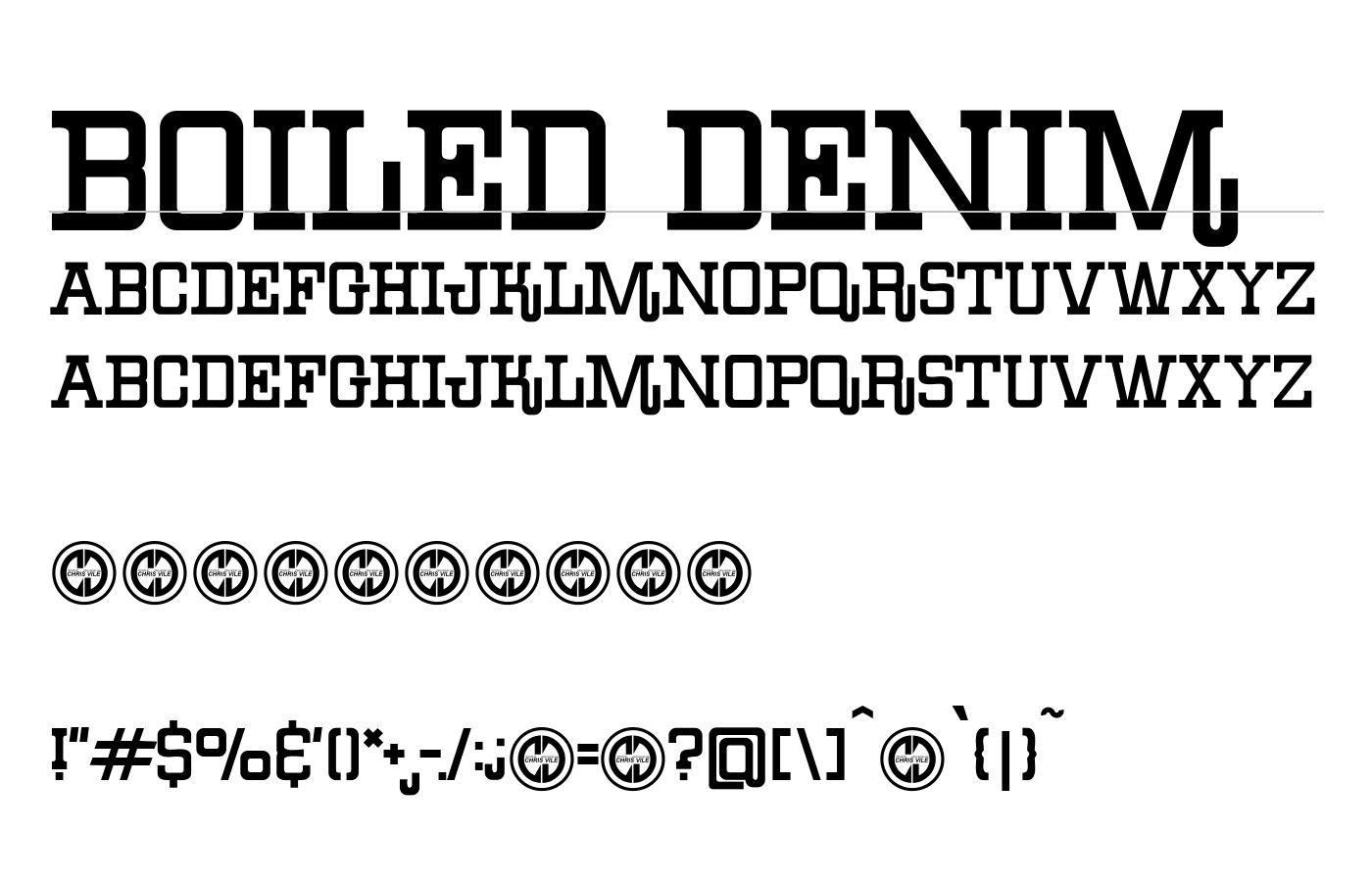
Boiled Denim is a bold slab serif font with a strong, industrial feel characterized by its thick, blocky serifs and high contrast between strokes. Its condensed width and uniform stroke weight give it a sturdy, masculine appearance, making it ideal for designs that need a vintage yet powerful presence, such as logos, posters, and branding in fashion or rugged lifestyle sectors. This font works best in headlines and display use where its distinctive style can command attention and convey a sense of durability and timelessness.
Boiled Denim Font
About Boiled Denim Font
| Font family | Boiled Denim Font |
| Designer | Chris Vile |